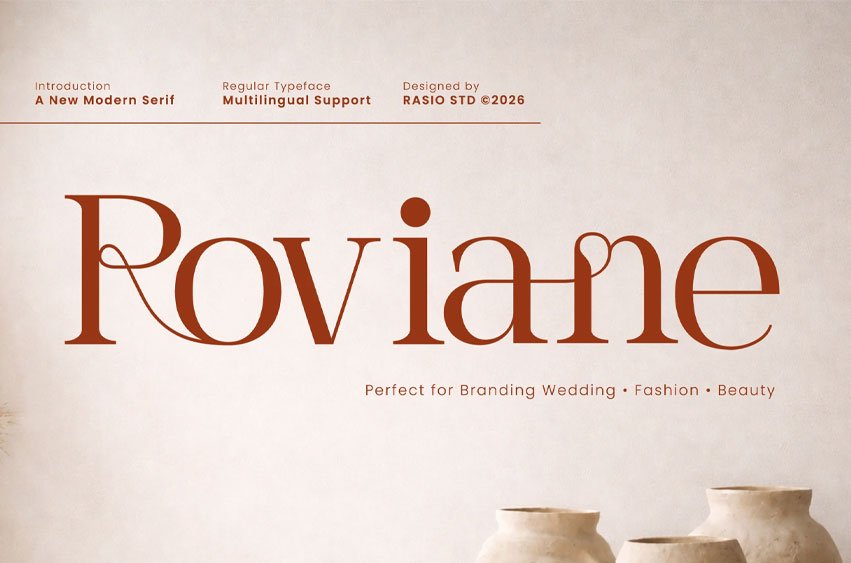
Roviane Font showcases a refined modern serif style with graceful curves and delicate contrast. The letterforms feature smooth transitions, subtle high-contrast strokes, and distinctive ligature-inspired details that add a sense of elegance and sophistication. Its clean structure is balanced with artistic flourishes, creating a timeless aesthetic with a contemporary touch. Includes uppercase, lowercase, numerals, punctuation, and multilingual support.
Relevance and Use Cases is perfect for branding identity, wedding invitations, fashion editorials, beauty product packaging, luxury logos, magazine layouts, social media design, typography posters, boutique branding, cosmetic labels, photography watermarks, and elegant visual storytelling projects.
Main Features:
- Uppercase & Lowercase
- Numeral & Punctuations
- Multilingual Support
- Ligatures & Alternate